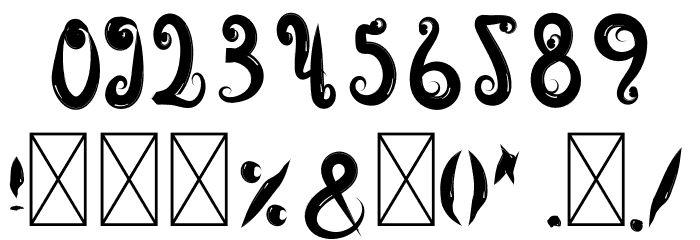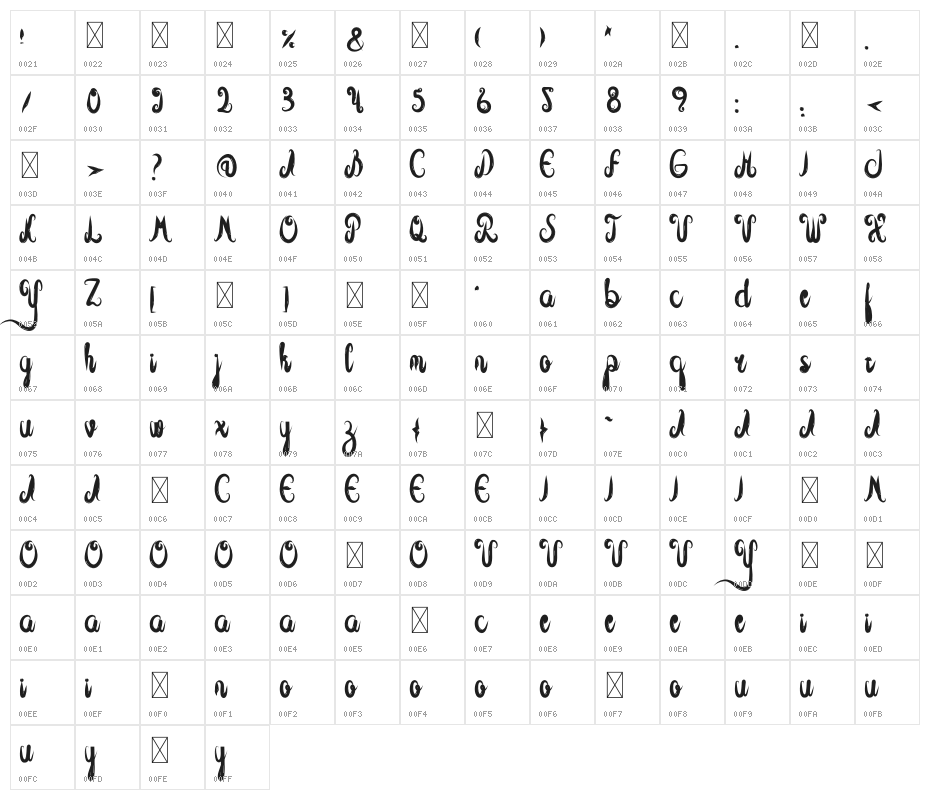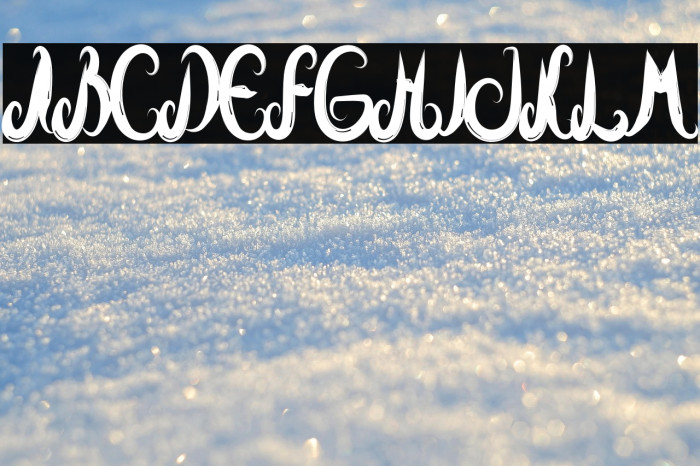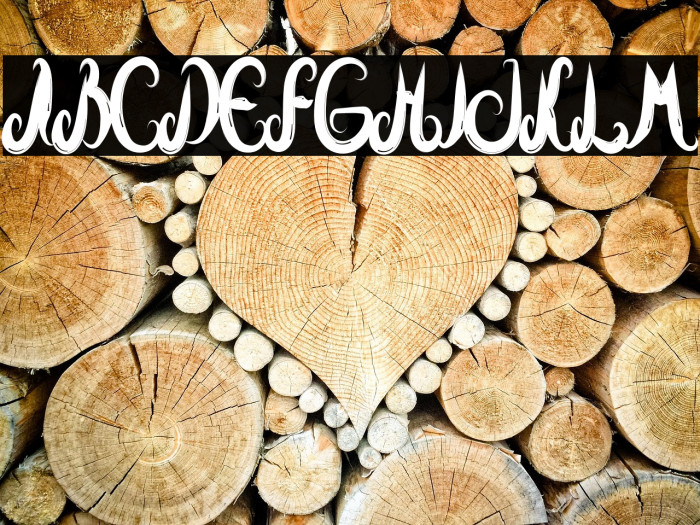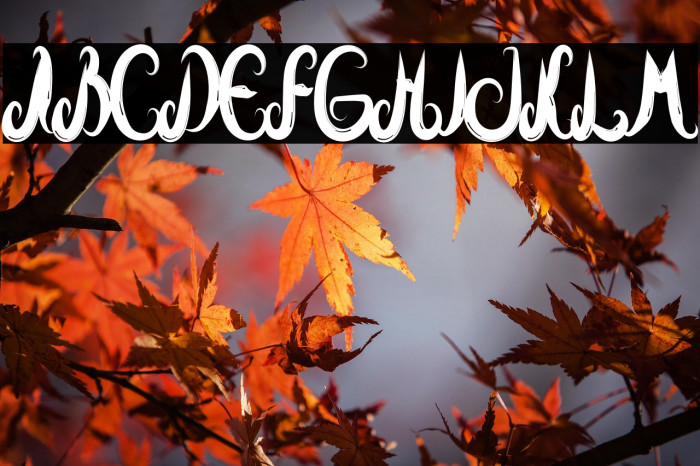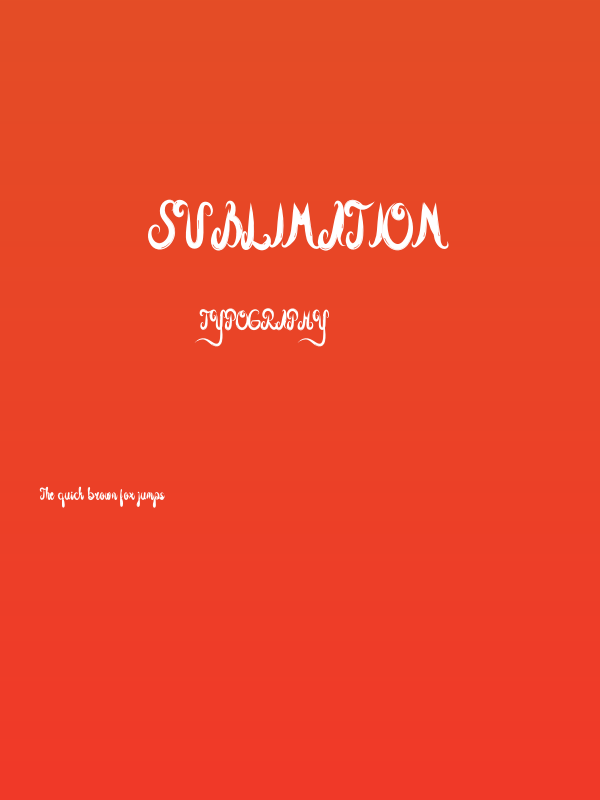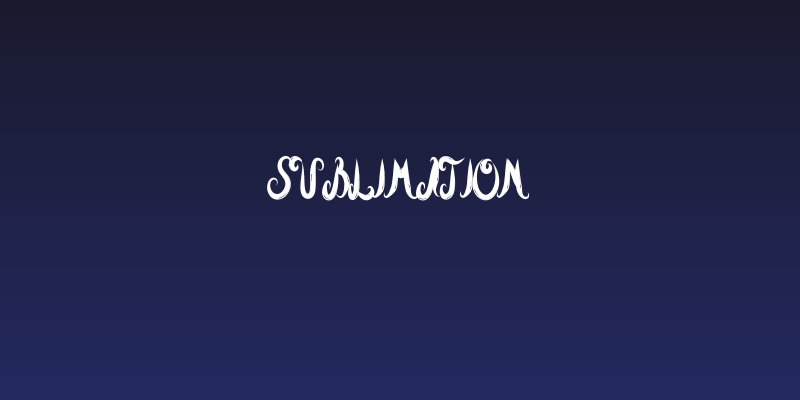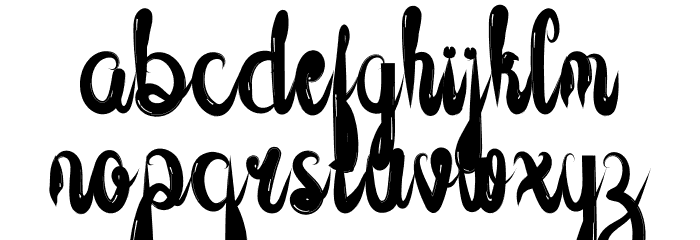
Sublimation Font
Sublimation Description
This font features a whimsical and decorative style with a playful, curly design. The characters are embellished with unique swirls and loops, giving it a lively and artistic appearance. The uppercase and lowercase letters maintain a consistent style, with the uppercase being slightly more elaborate. The numbers and special characters follow the same decorative theme, ensuring a cohesive look across all elements. This font's intricate details make it stand out, adding a touch of creativity and flair to any project.
| Proposed Projects | Ideal for creative projects such as invitations, greeting cards, posters, and branding materials that require a playful and artistic touch. |